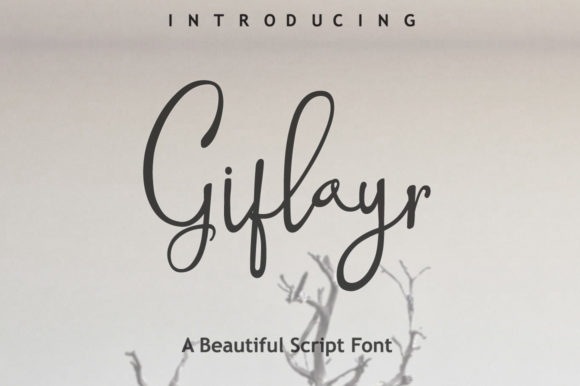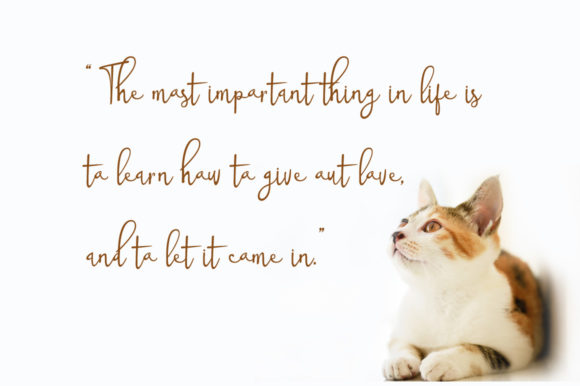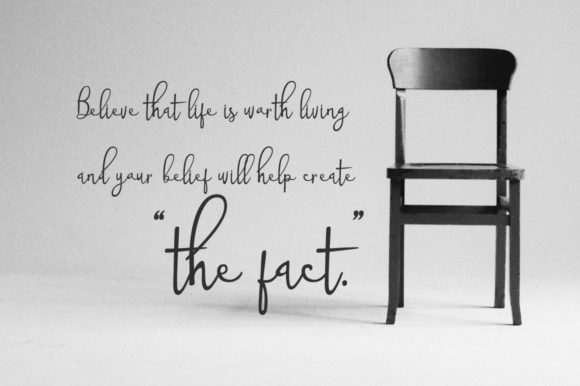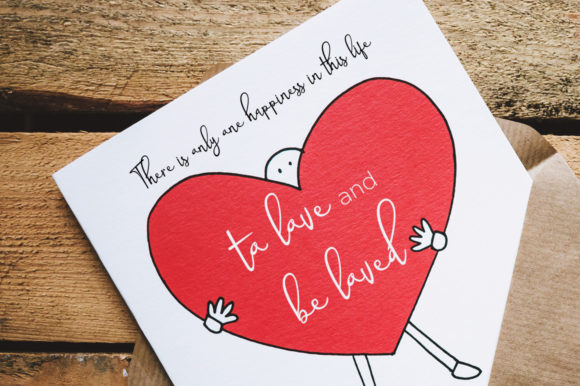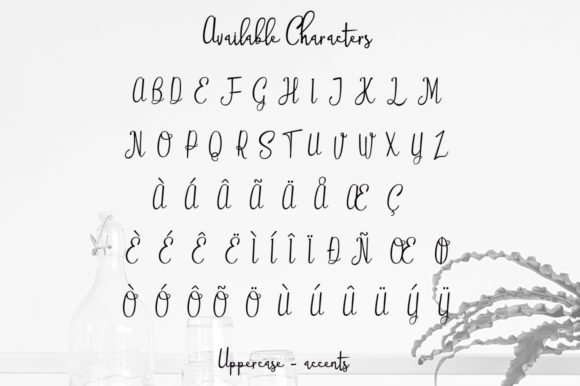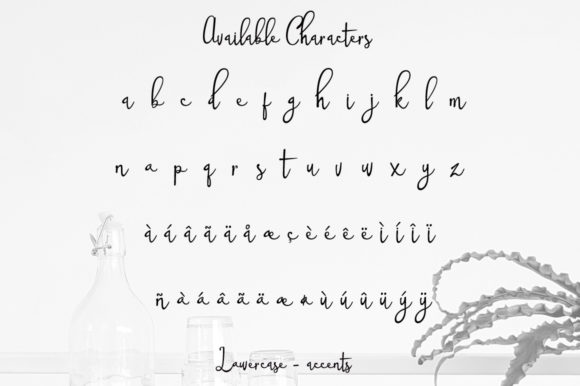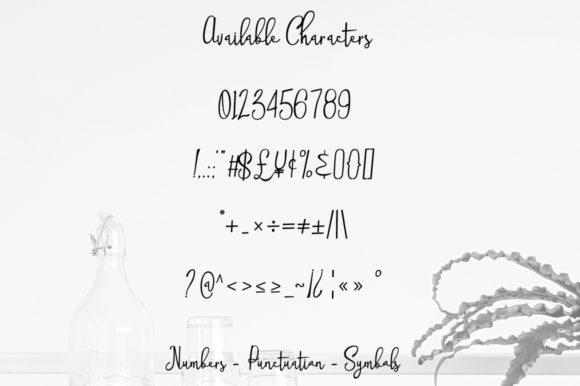
Gifloyr Font
About Gifloyr Font
Gifloyr is a beautiful handwritten script font. Fall in love with its authentic feel and use it to create gorgeous wedding invitations, beautiful stationary art, eye-catching social media posts, and cute greeting cards.